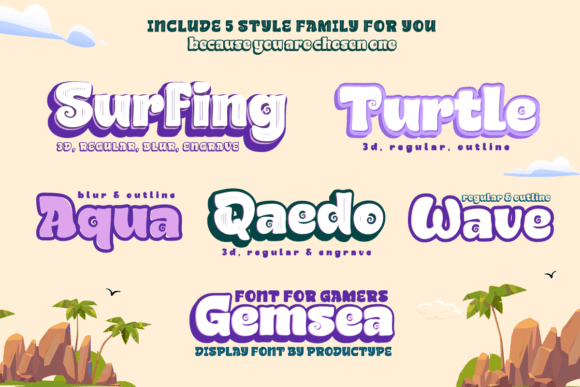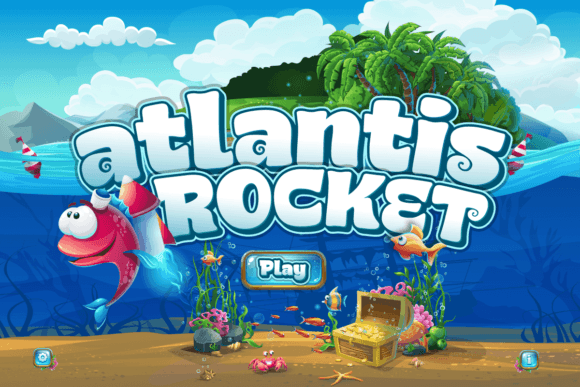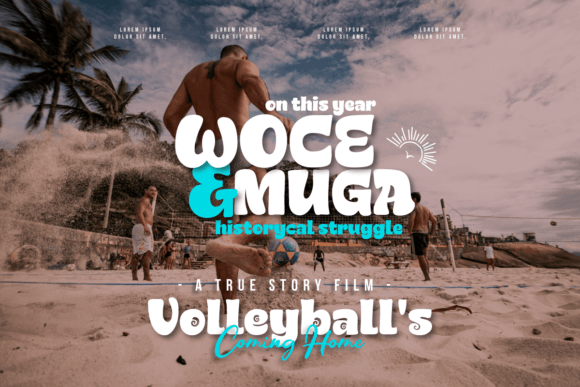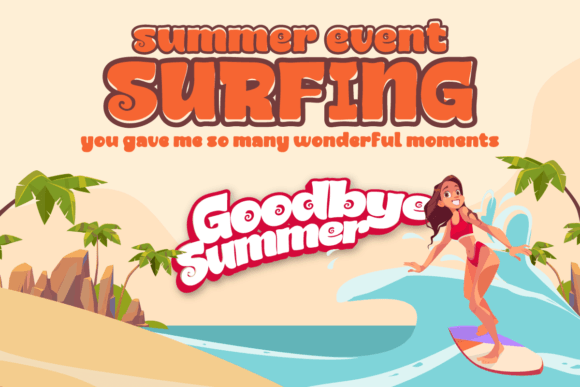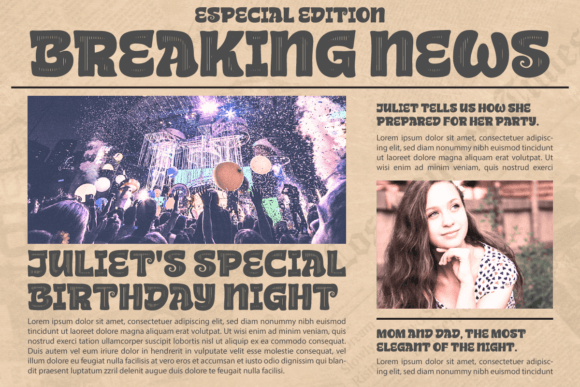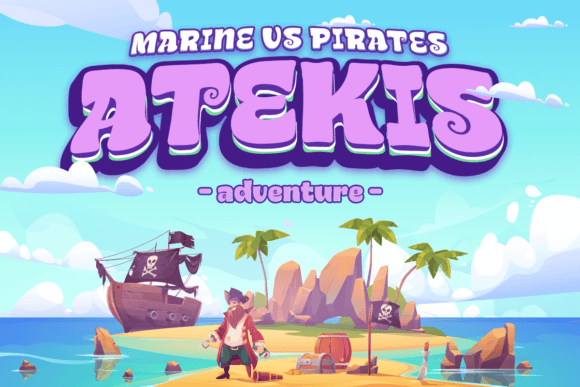
Unlocking Endless Creativity with Gemsea Font
Have you ever been in the middle of a design project, and suddenly, it feels like something’s missing? You’re not alone! I recall working on a project for a client who wanted a bold, ocean-inspired theme. I scoured the internet for the perfect font, but nothing seemed quite right. That was until I stumbled upon Gemsea Font. With its strong, bold, and fun touch, it was like a breath of fresh air. In this article, we’ll dive into the world of Gemsea Font and explore its stunning features, versatility, and creative possibilities.
A Personal Review: What I Love About Gemsea Font
So, what makes Gemsea Font so special? Here are a few things that caught my attention:
- ✨ Five different family styles: Regular, Blur, Engrave, Outline, and 3D. This range of styles gives you the flexibility to create a variety of nuances in your designs.
- ✅ Multilingual support: Connect with a global audience without restrictions. Whether you’re working on a project for a client in a different country or creating content for a diverse audience, Gemsea Font has got you covered.
- 🌊 Ocean-inspired theme: Bring the magic of the ocean into your designs with a font that’s perfect for epic films, stunning games, and unforgettable streaming events.
While Gemsea Font is an excellent choice for many projects, there are a few things to keep in mind:
- ⚠️ Learning curve: With five different family styles and a range of OpenType features, it may take some time to get familiar with the font.
- 🤔 Pairing with other fonts: As with any bold font, pairing Gemsea with other fonts can be tricky. Experiment with different combinations to find the perfect match.
While the true story behind Gemsea Font remains a mystery, let’s imagine a fictional backstory. Meet a young designer named Alex, who’s passionate about the ocean and its wonders. Alex wanted to create a font that would capture the essence of the sea and bring it to life in designs. After months of research and experimentation, Gemsea Font was born.
| Font Name | Gemsea Font |
| Author | Productype |
| Is Gemsea Font suitable for body text? | While Gemsea Font is primarily designed for display purposes, it can be used for body text in certain contexts. However, it’s recommended to use a clear, legible font for extended reading. |
In conclusion, Gemsea Font is an exceptional choice for designers, crafters, and creative hobbyists looking to add a touch of the ocean to their projects. With its stunning features, versatility, and creative possibilities, Gemsea Font is sure to make a splash in the design world.